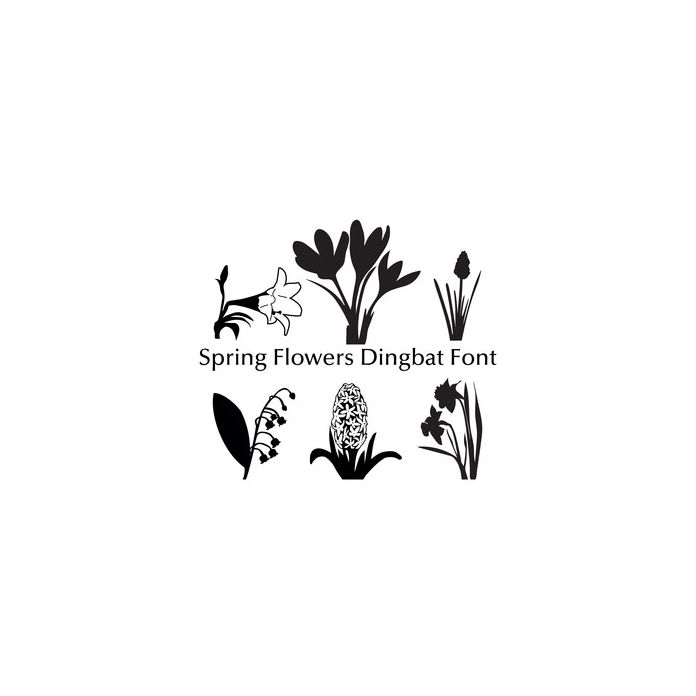
spring flowers dingbat font
Includes: Tulips, Crocus, Daffodils, Grape hyacinth, Hyacinth, Iris, Pansy, Snowdrops, Lily of the Valley, Forget Me Nots, Magnolia, Cherry blossom, Dogwood, Trillium, Easter Lily. For creative ideas and commercial licenses please visit http://www.quietfiredesign.ca and blog http://quietfiredigital.blogspot.ca/